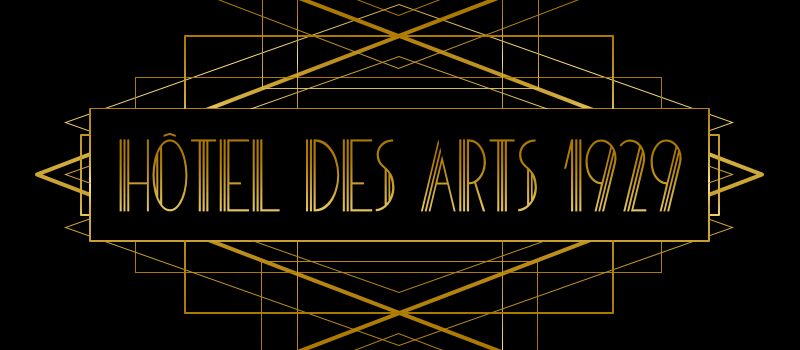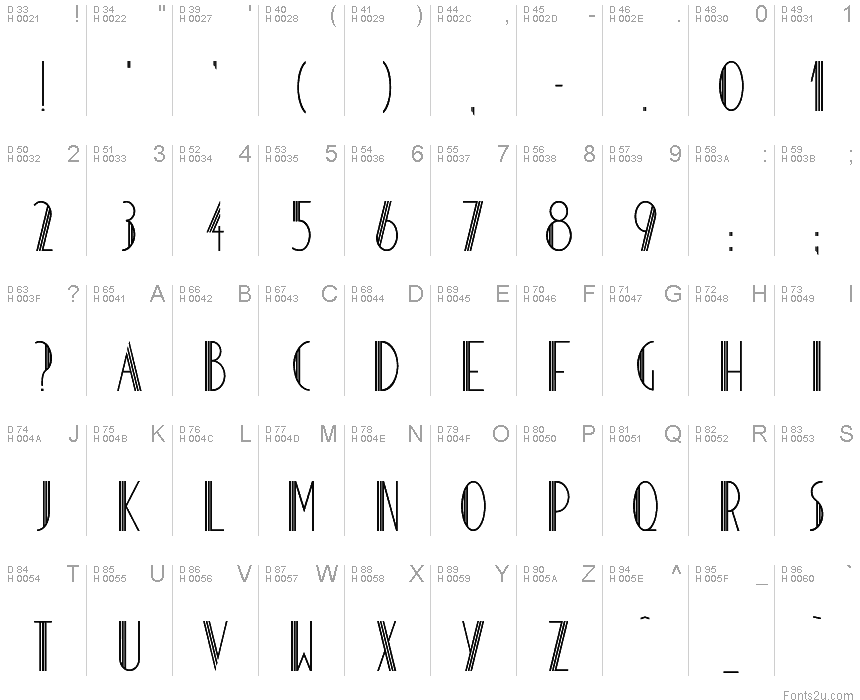
HOTEL DES ARTS 1929
This font is an Art Deco-styled typeface inspired by the architecture of the 1920s and 1930s. This set is only composed of uppercase letters (some are also available with accents), numbers 0-9 and basic punctuation.
It should preferably be used for headlines or texts with a rather high size considering that it is an uppercase font and that it isn't designed for small sizes.